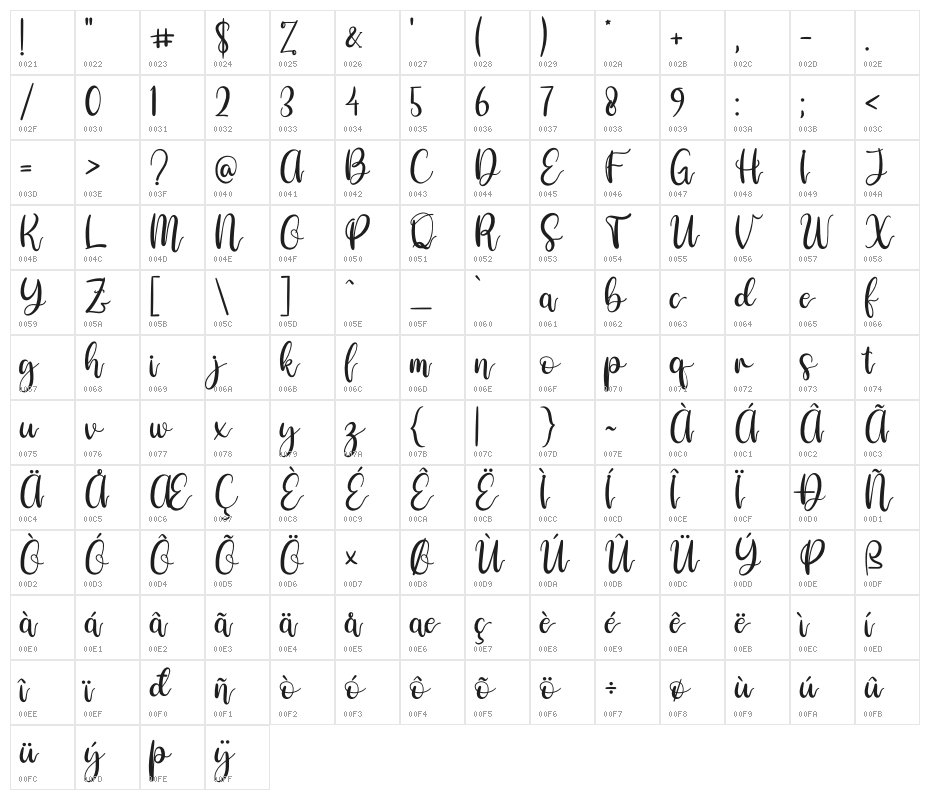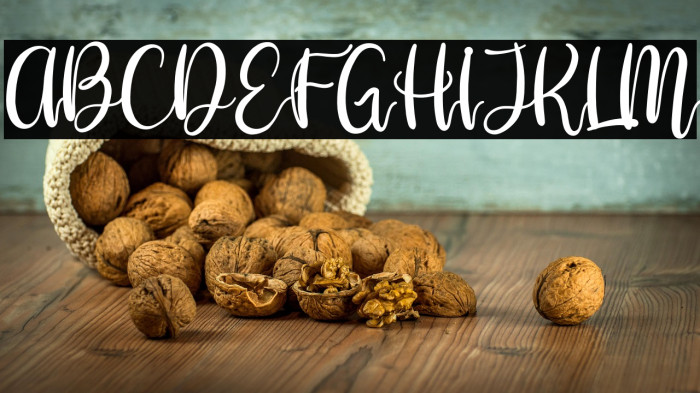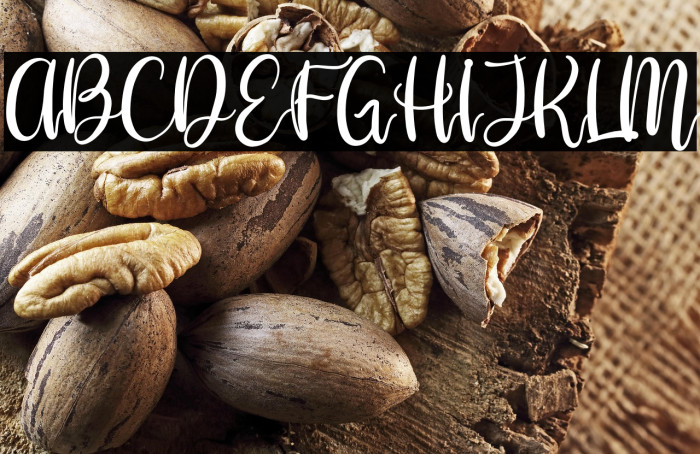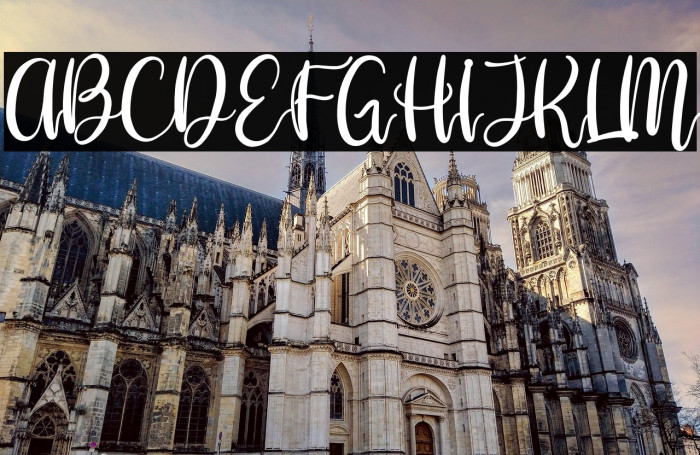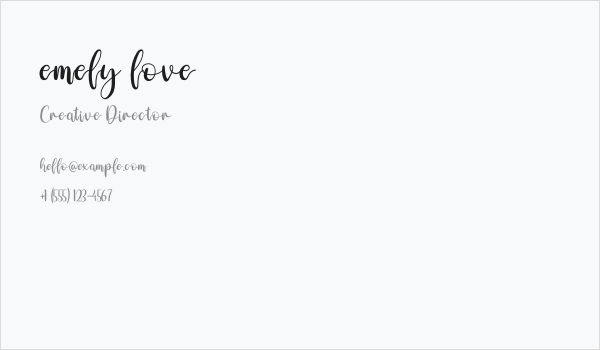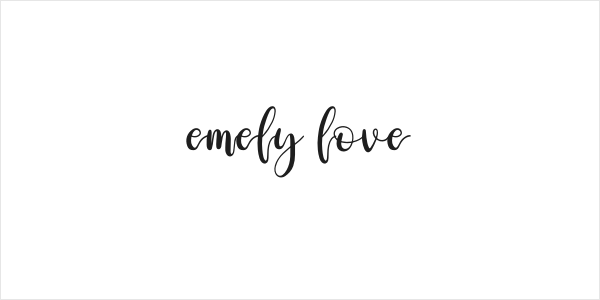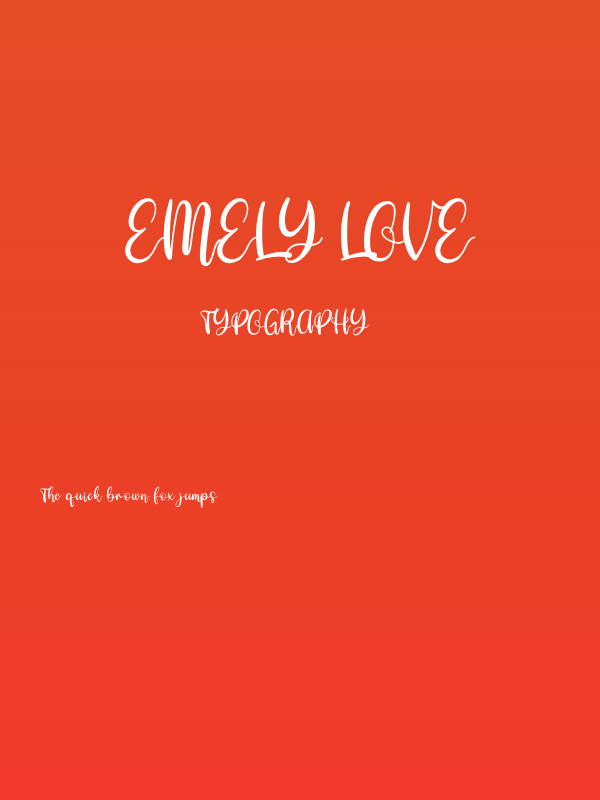
emely love Font
emely love Description
This font exudes a playful and romantic charm with its flowing, cursive style. The letters are elegantly connected, creating a sense of continuity and grace. The uppercase letters are bold and expressive, while the lowercase letters maintain a consistent rhythm with their rounded forms. The numerals are equally stylish, featuring a whimsical flair that complements the overall aesthetic. Special characters are thoughtfully designed to match the font's lively personality. This font is perfect for projects that require a touch of elegance and creativity, such as wedding invitations, greeting cards, and branding materials.
EMELY-LOVE UPPERCASE
EMELY-LOVE LOWERCASE
EMELY-LOVE OTHER CHARS
| Overall Style | Romantic, Playful |
| Proposed Projects | Ideal for wedding invitations, greeting cards, and branding materials. |